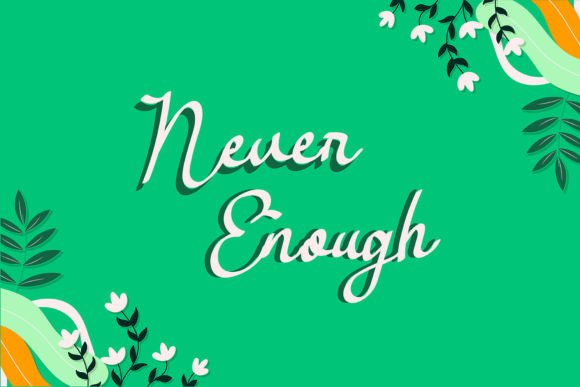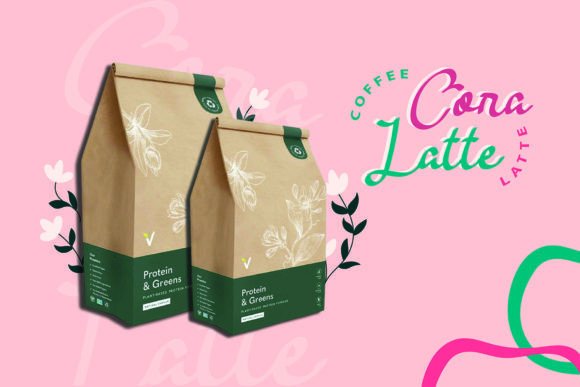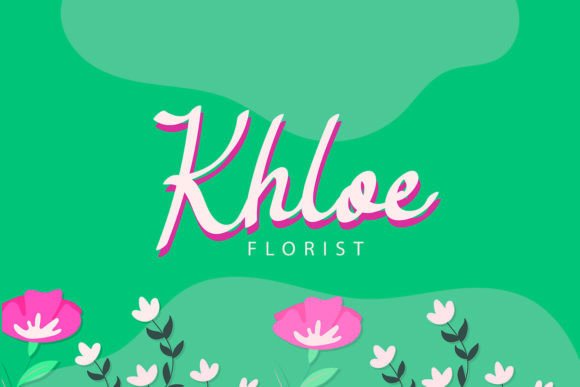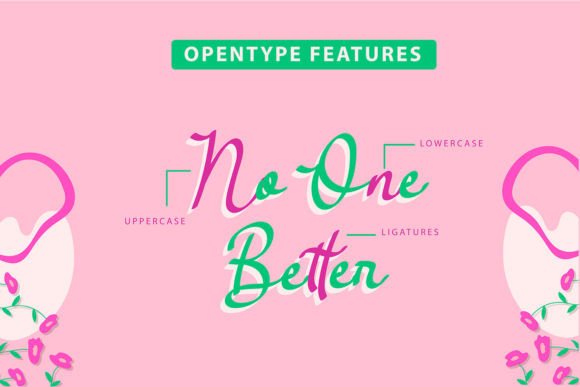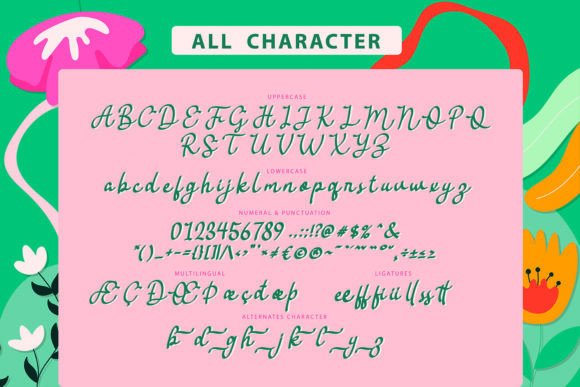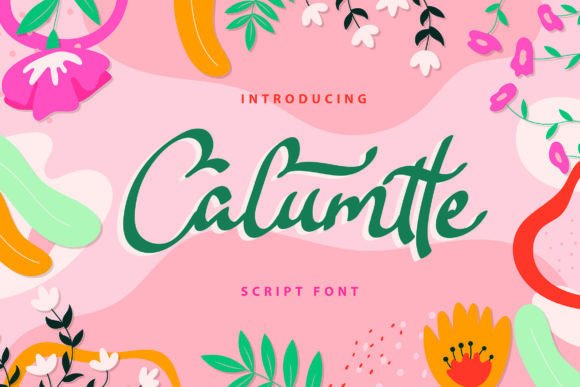
Introducing Calumtte Font: Elevate Your Designs with Timeless Elegance
In the world of design, fonts play a pivotal role in conveying the essence and aesthetic of a project. Whether you’re a graphic designer, a crafty DIY enthusiast, or a digital artist, finding the right font can be a game-changer. This is where Calumtte Font comes into play—a unique, vintage script font designed to add a touch of class and elegance to any design project. In this article, we’ll dive deep into the features of Calumtte Font, its benefits, and how it can transform your designs.
The Charm of Calumtte Font
Calumtte Font stands out with its exclusive, hand-lettered look that exudes sophistication and refinement. Its fluid strokes and classical curves provide a timeless, classic appearance that ensures your designs remain stylish and relevant, standing the test of time. This font is not just a typeface; it’s an artistic statement that can elevate your projects, making them more captivating and memorable.
Key Features of Calumtte Font
• Unique and Vintage Appeal: Calumtte Font boasts a distinctive vintage script style that is both elegant and sophisticated. Its unique character ensures your designs stand out in a crowded creative landscape.
• Hand-Lettered Look: The font’s hand-lettered appearance adds a personal touch to your designs, making them more relatable and engaging to your audience.
• PUA Encoded: Calumtte Font is PUA (Private Use Area) encoded, which means you can access all glyphs and swashes effortlessly. This feature allows for greater flexibility and creativity in your designs, enabling you to experiment with various stylistic elements.
• Timeless Elegance: The font’s design ensures that your projects will not look dated anytime soon. Its classic appeal makes it versatile for various design applications, from luxury branding to elegant stationery.
Calumtte Font offers numerous benefits for designers and crafters looking to enhance their projects:
• Versatility: Its elegant and versatile design makes it suitable for a wide range of projects, including branding, packaging, posters, and digital content.
• Easy to Use: Being PUA encoded, users can easily access and apply the various glyphs and swashes, making the design process smoother and more efficient.
• High-Quality Aesthetic: The font’s high-quality aesthetic ensures that your designs look professional and polished, helping you to build a strong brand image.
• Unique Designs: With Calumtte Font, you can create unique and distinctive designs that set you apart from competitors, capturing the attention of your audience.
How to Make the Most of Calumtte Font
To truly leverage the potential of Calumtte Font, consider the following tips:
• Pair it Wisely: Combine Calumtte Font with complementary fonts to create visual harmony and hierarchy in your designs.
• Experiment with Swashes: Take advantage of the PUA encoding to experiment with different swashes and glyphs, adding a personal touch to your typography.
• Use it for Headlines and Titles: The font’s elegant and bold appearance makes it perfect for headlines and titles, where you want to make a strong visual impact.
• Consider the Context: Ensure that the font aligns with the overall theme and message of your project, enhancing its effectiveness.
Calumtte Font is a remarkable addition to any designer’s or crafter’s toolkit. Its unique blend of vintage charm and modern elegance, coupled with its practical features like PUA encoding, makes it an invaluable asset for creating stunning designs. Whether you’re working on a branding project, crafting beautiful stationery, or designing captivating digital content, Calumtte Font is sure to elevate your work to new heights of sophistication and style.